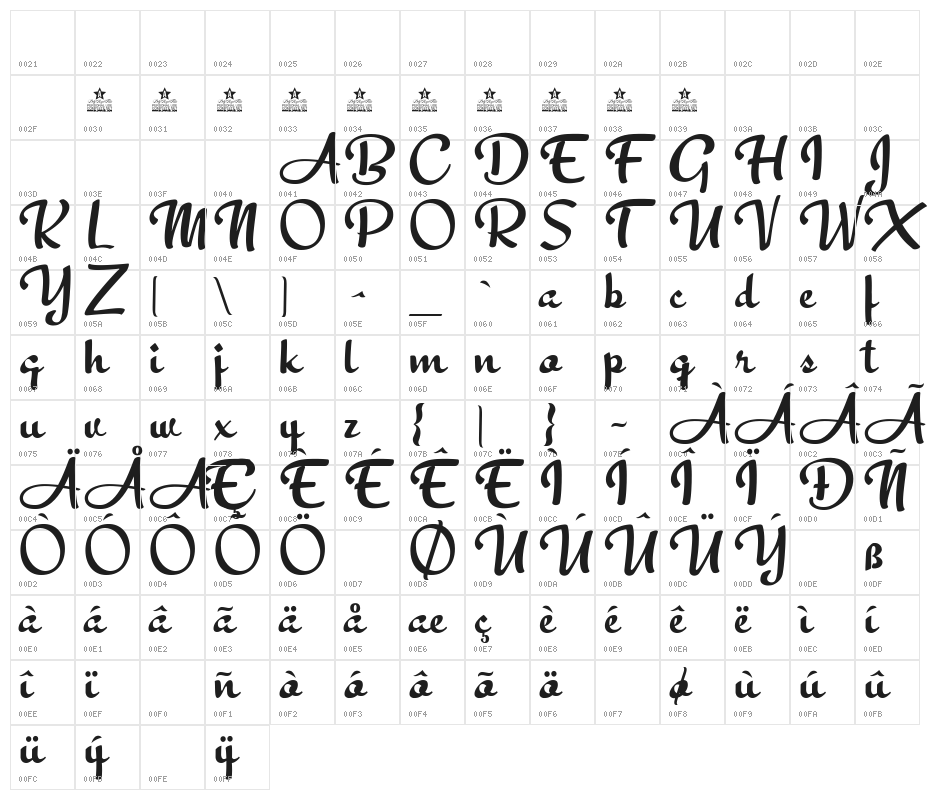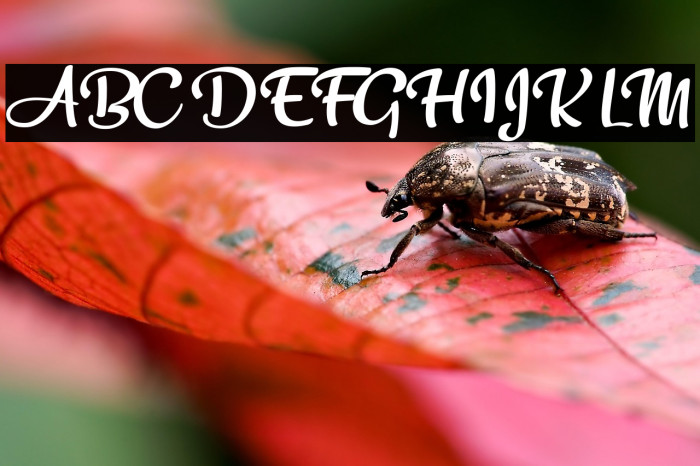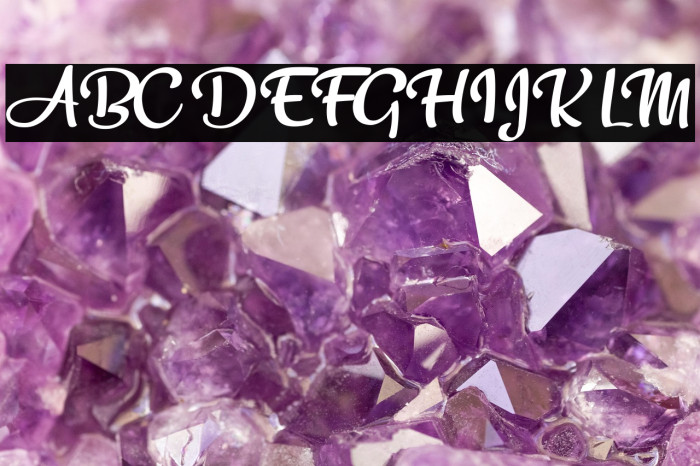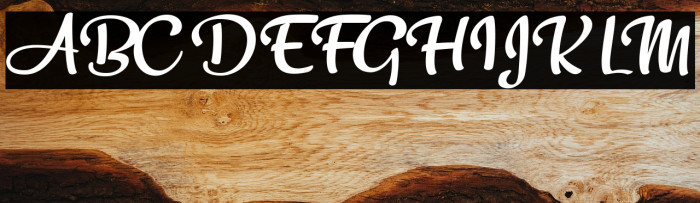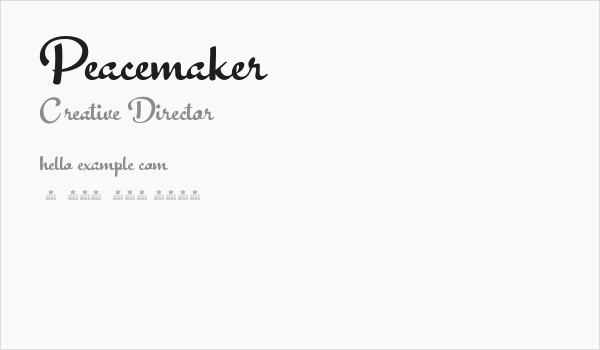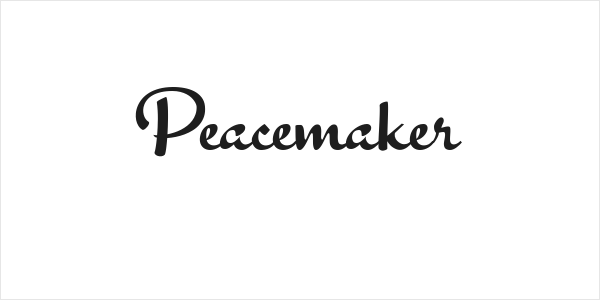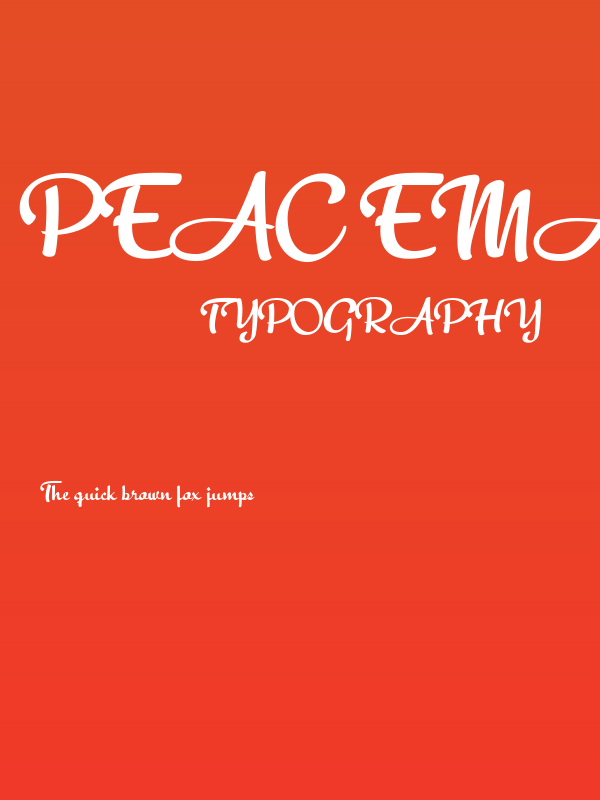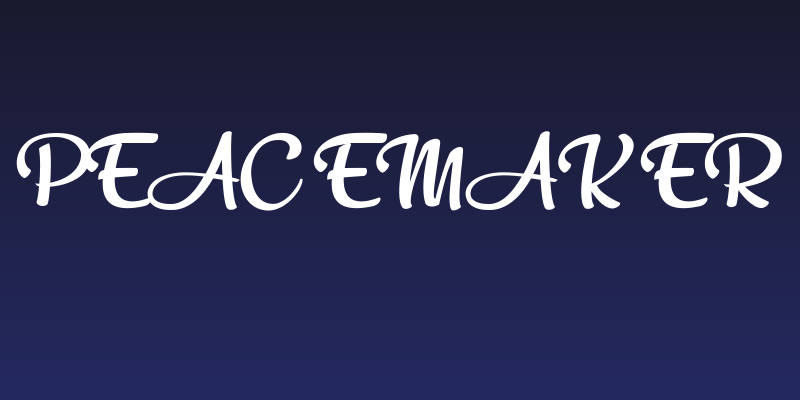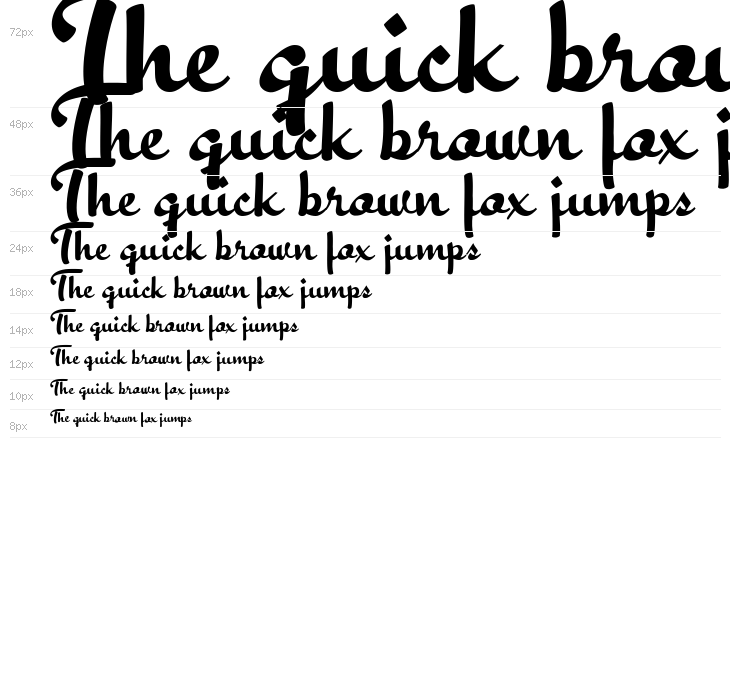
Peacemaker Font
Peacemaker Description
This font features a classic script style with elegant, flowing lines and a sense of movement. The uppercase letters are characterized by their graceful curves and loops, while the lowercase letters maintain a consistent, smooth flow. The font has a calligraphic feel, reminiscent of traditional handwriting, yet it maintains a modern touch. The characters are well-balanced, with a slight slant that adds to the dynamic appearance. The overall design is sophisticated and versatile, suitable for a variety of applications where a touch of elegance is desired.
Overall StyleClassic
Use CaseLogos, Invitations, Greeting Cards
Proposed ProjectsIdeal for wedding invitations, greeting cards, branding, and elegant logos.